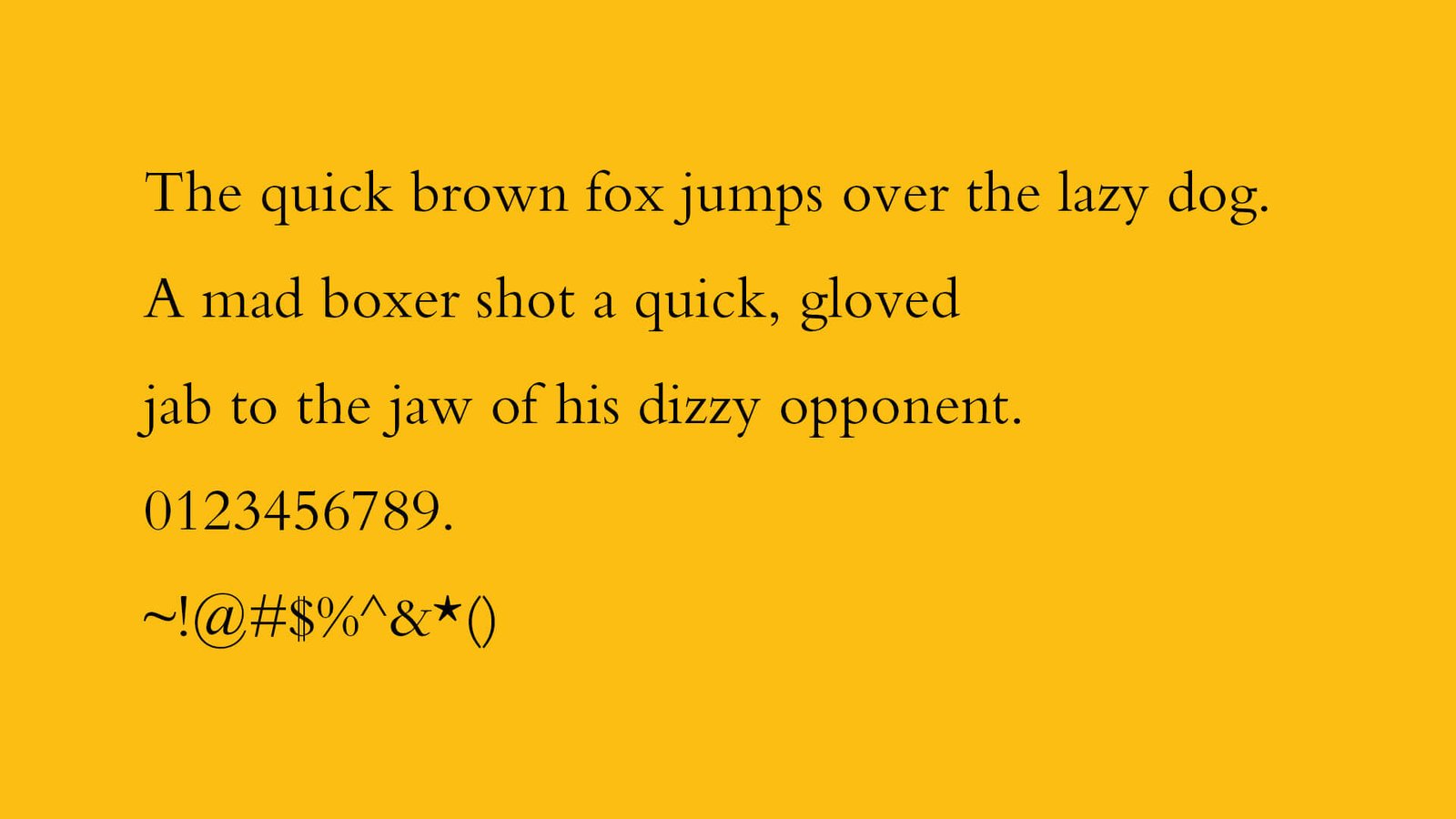
Let’s familiarize you with one of the renowned typefaces commonly utilized in printing books. To start off, we’ll delve into the history of the Bembo Font. The font was crafted by Francesco Griffo, with Pietro Bembo being the author of the book “de Aetna.” This book can be likened to a travelogue.
| Name | Bembo Font |
| Style | Serif, Old Style |
| Designer | Francesco Griffo |